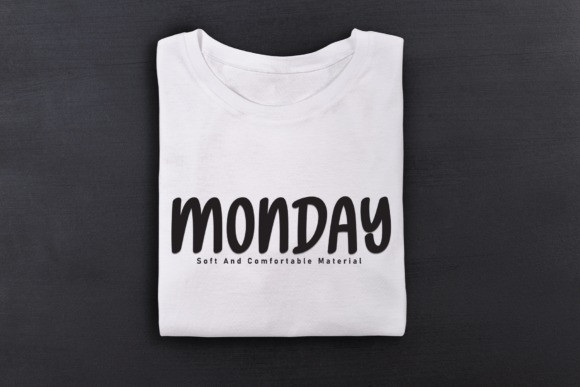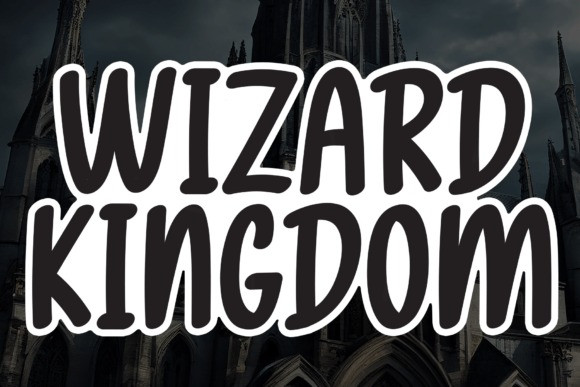
Wizard Kingdom Font
Wizard Kingdom Font is a sweet and friendly handwritten display font. Cute and fun, this font is ideal for writing wedding invitations, cards, or any other design that might need a fun touch!